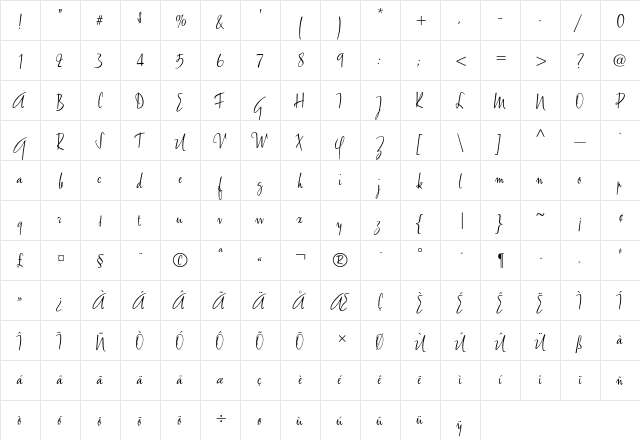
Amethyste Regular
Design Context for Amethyste Typeface
Amethyste is a composed and adaptable typeface that performs quietly and consistently across a wide range of design contexts.